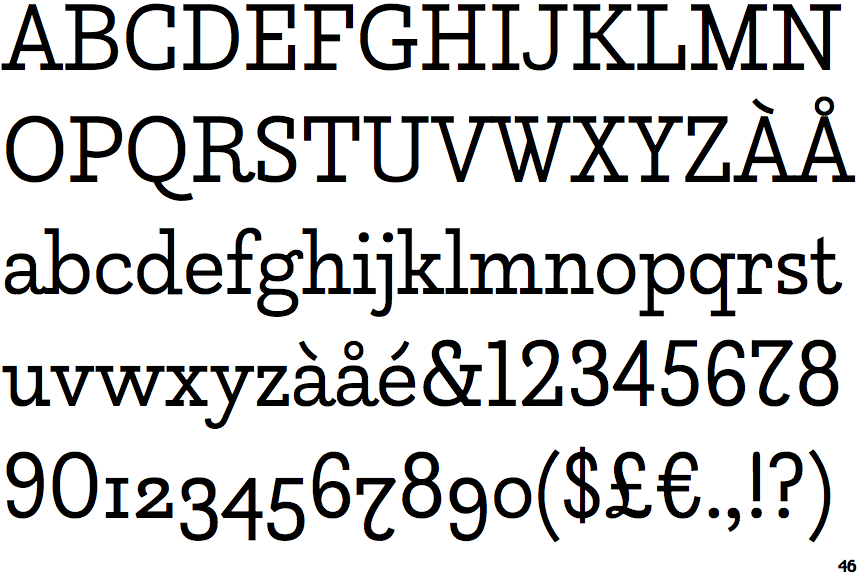
Karloff Neutral
Designers: Peter Biľak and Pieter van Rosmalen
Year: 2012
Publisher: Typotheque
Among the typefaces chosen in the review Our Favorite Typefaces of 2012 by the on-line journal Typographica.
An OpenType font that includes both lining and oldstyle figures.